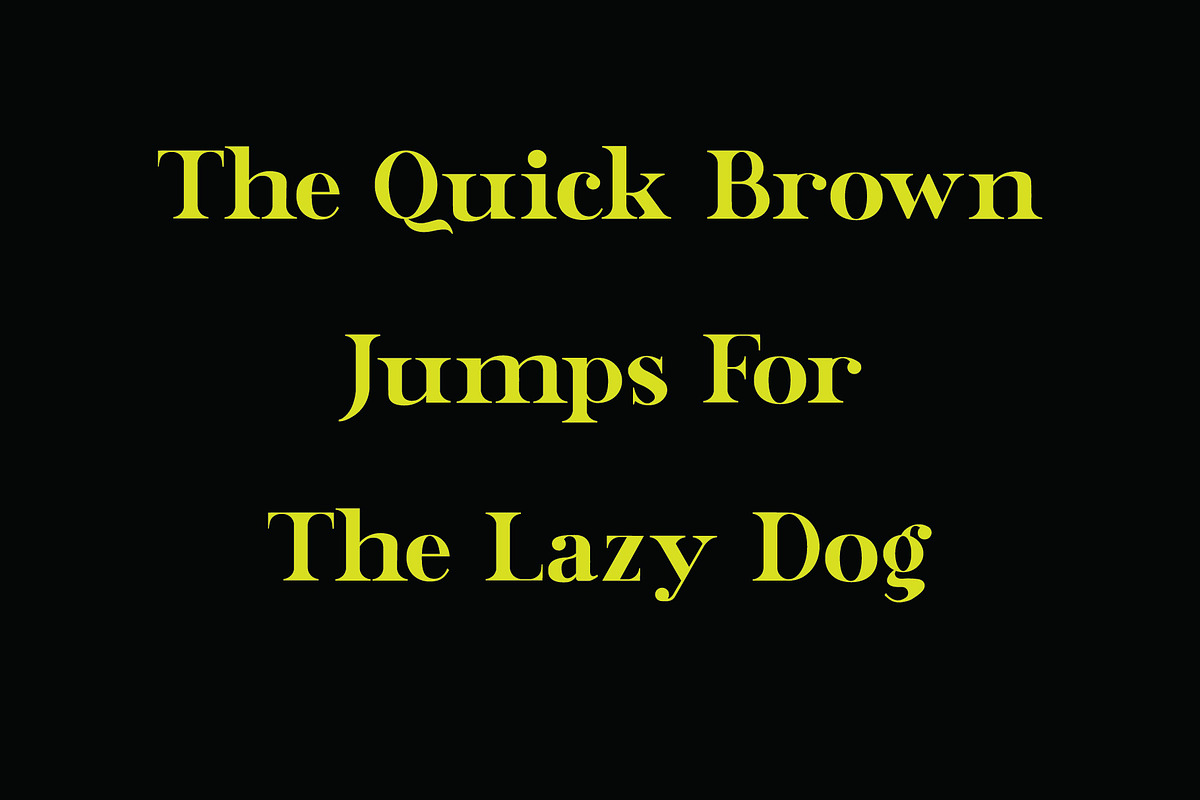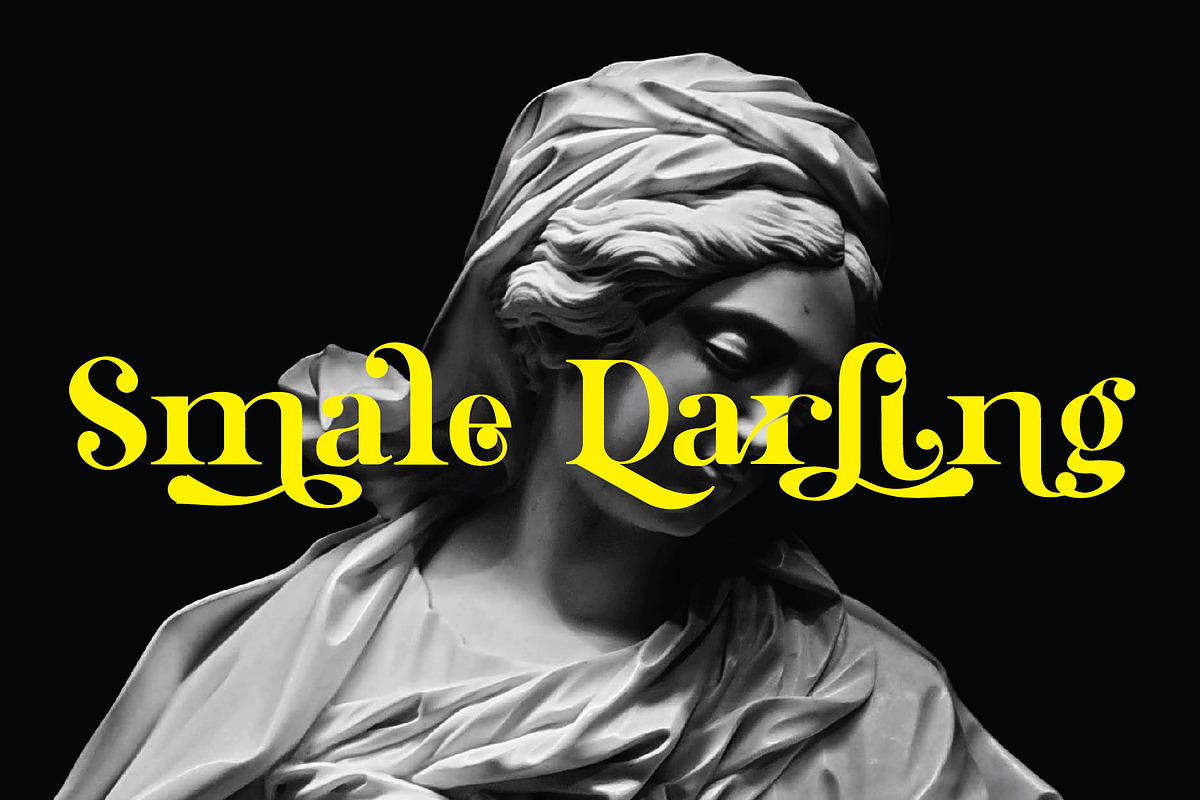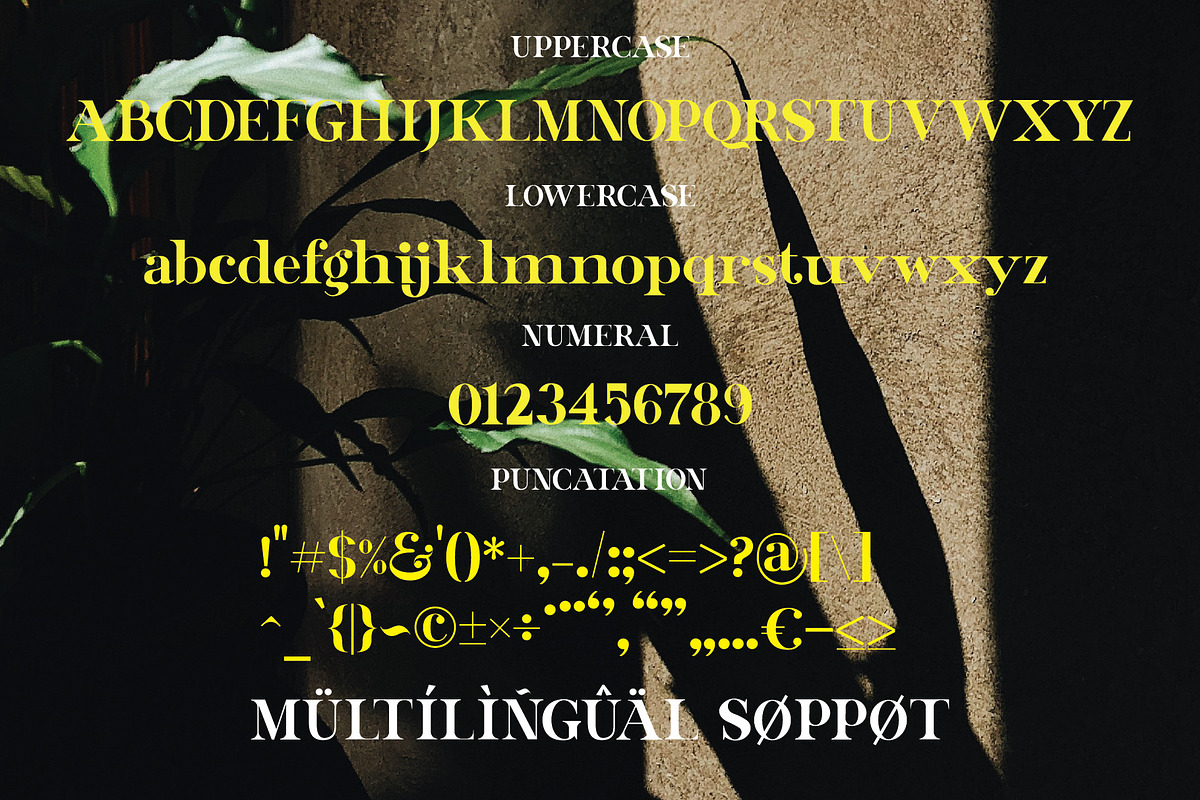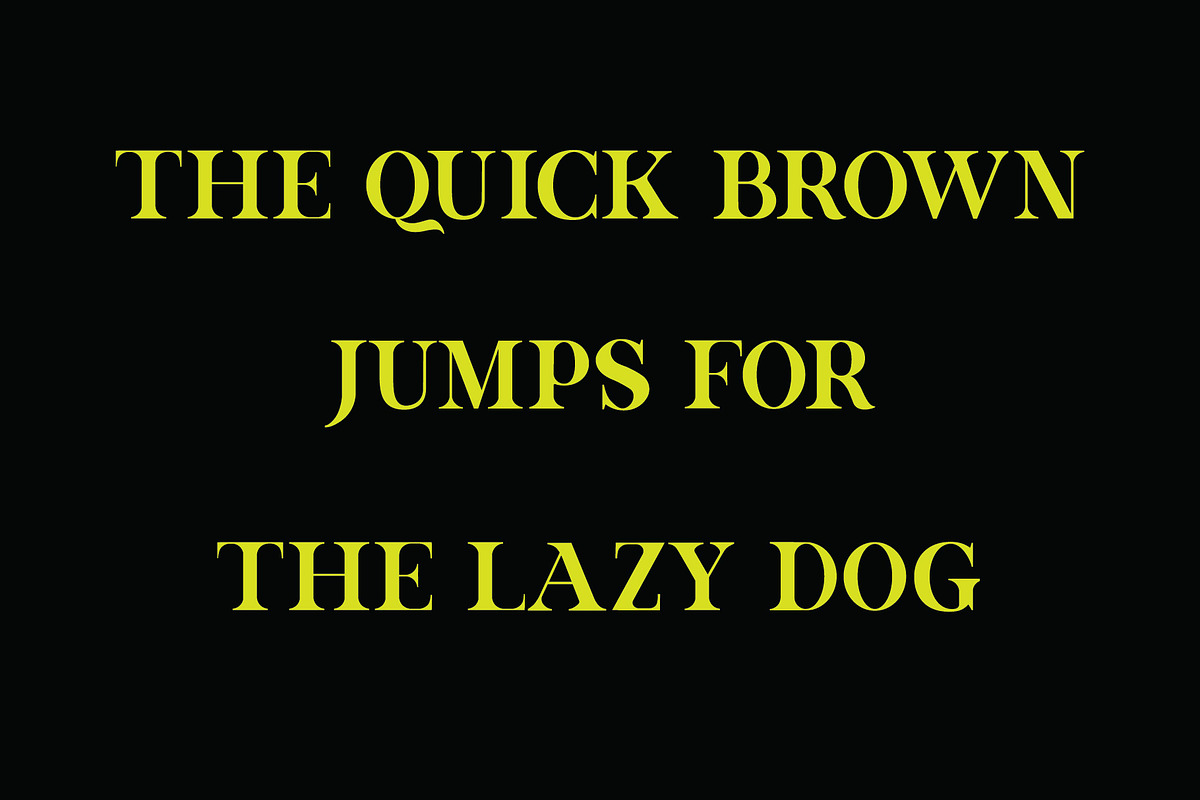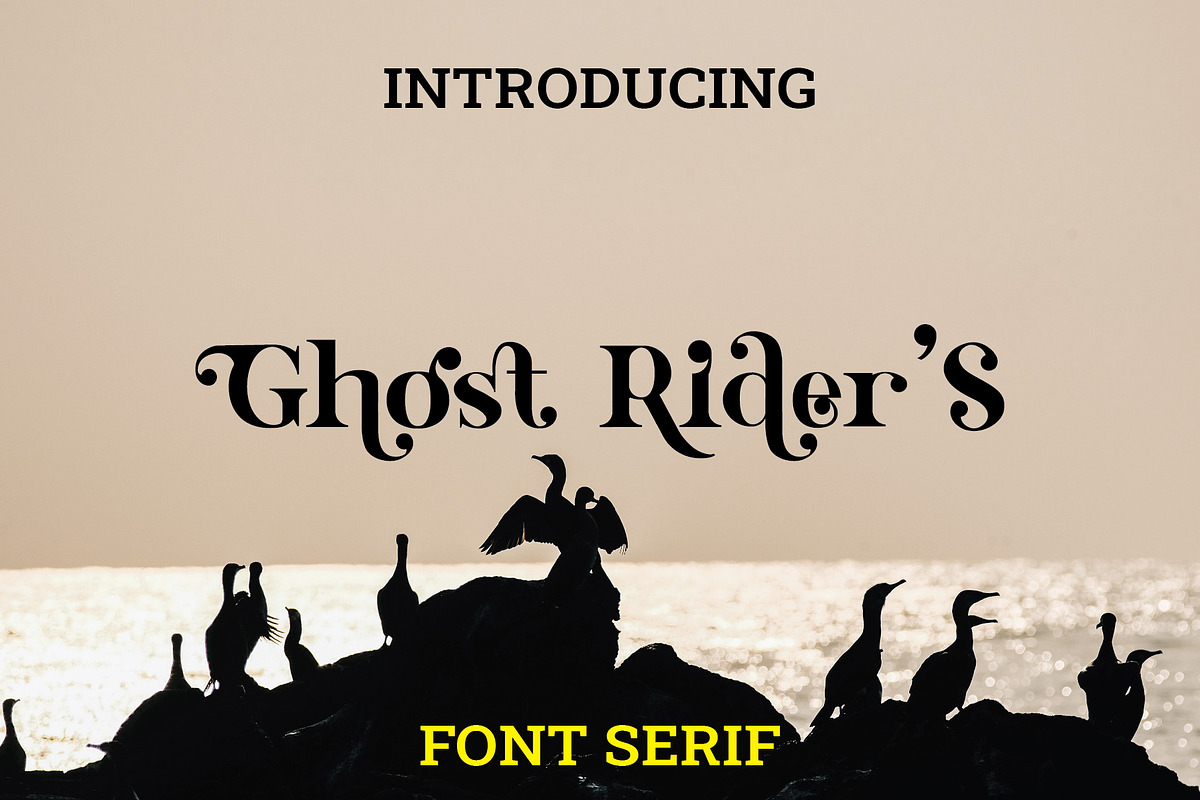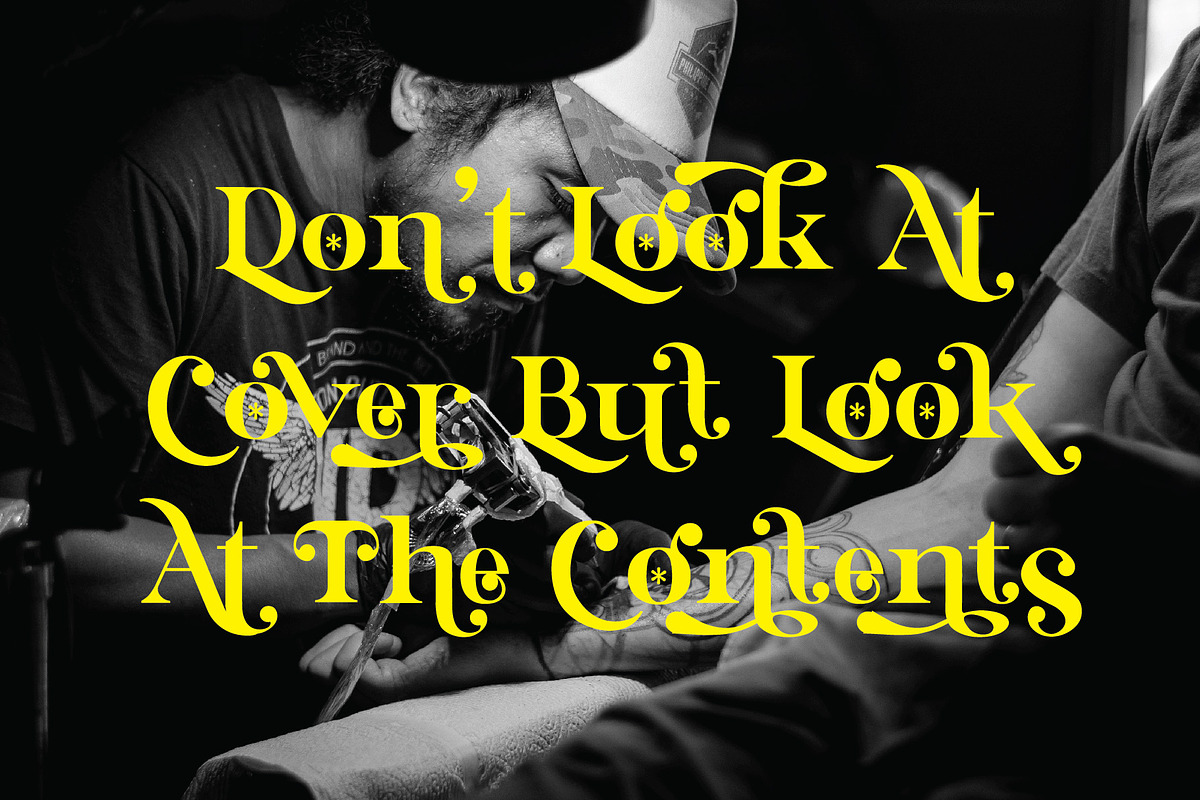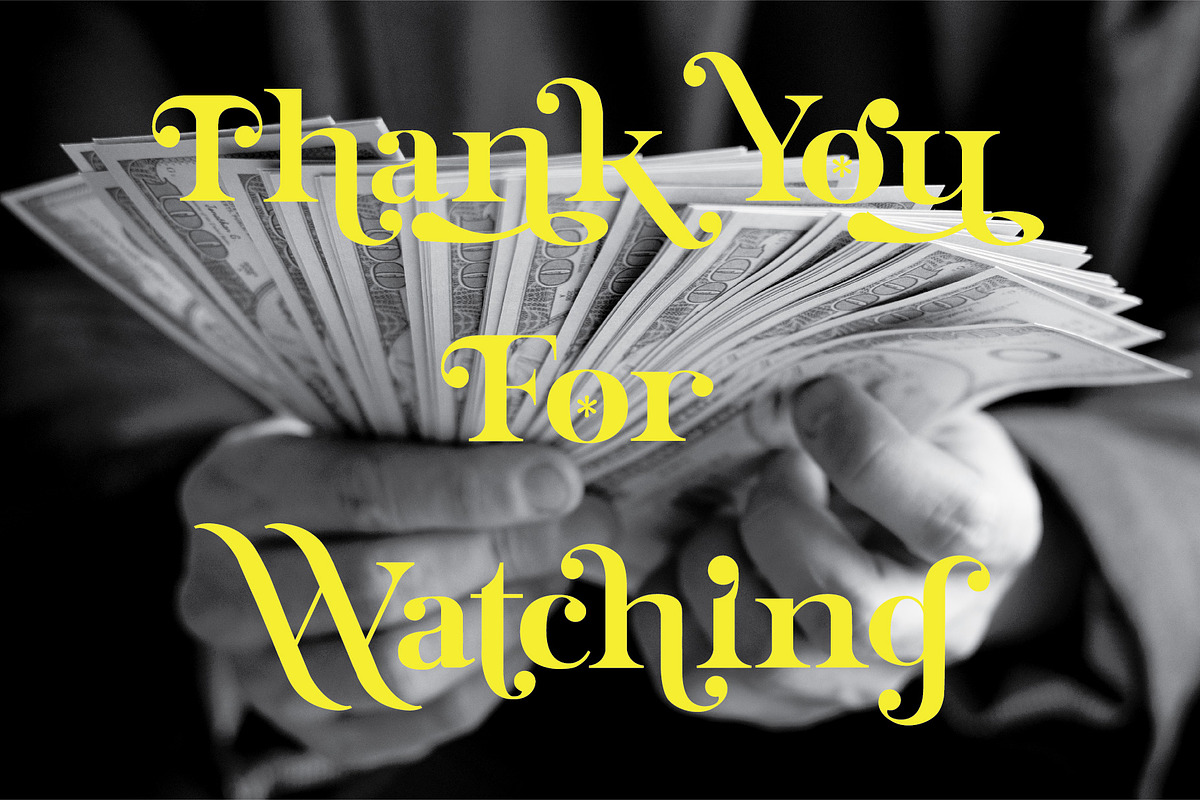
Ghost rider
kim lasser's profile picture robgraphics's profile picture GHOST RIDER'S FONT SPECIMEN Ghost Rider is a modern serif font made with many alternative patterns and ligatures, there are many choices of letters for you to be creative in making words or sentences so it looks elegant. This font is suitable for designers for posters, screen printing on clothes, invitations, or anything else according to your needs. This font is PUA encoded which means you can access all of the amazing glyphs and ligatures with ease! File OTF and TTF